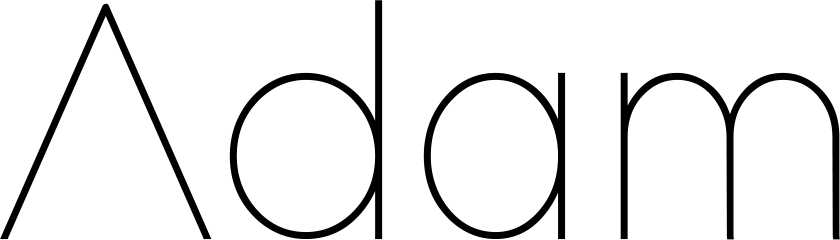
Adam Font
Let’s create content with a modern and informal mood so they can express a friendly vibe to the reader and these are features you can use in a variety of projects like posters, texts, websites, and UIs. For that specific requirement, we offer you Adam which is a sans-serif font.
This typeface comes in three styles and all of them contain both the uppercase and lowercase of the alphabet, numbers, and punctuation marks.